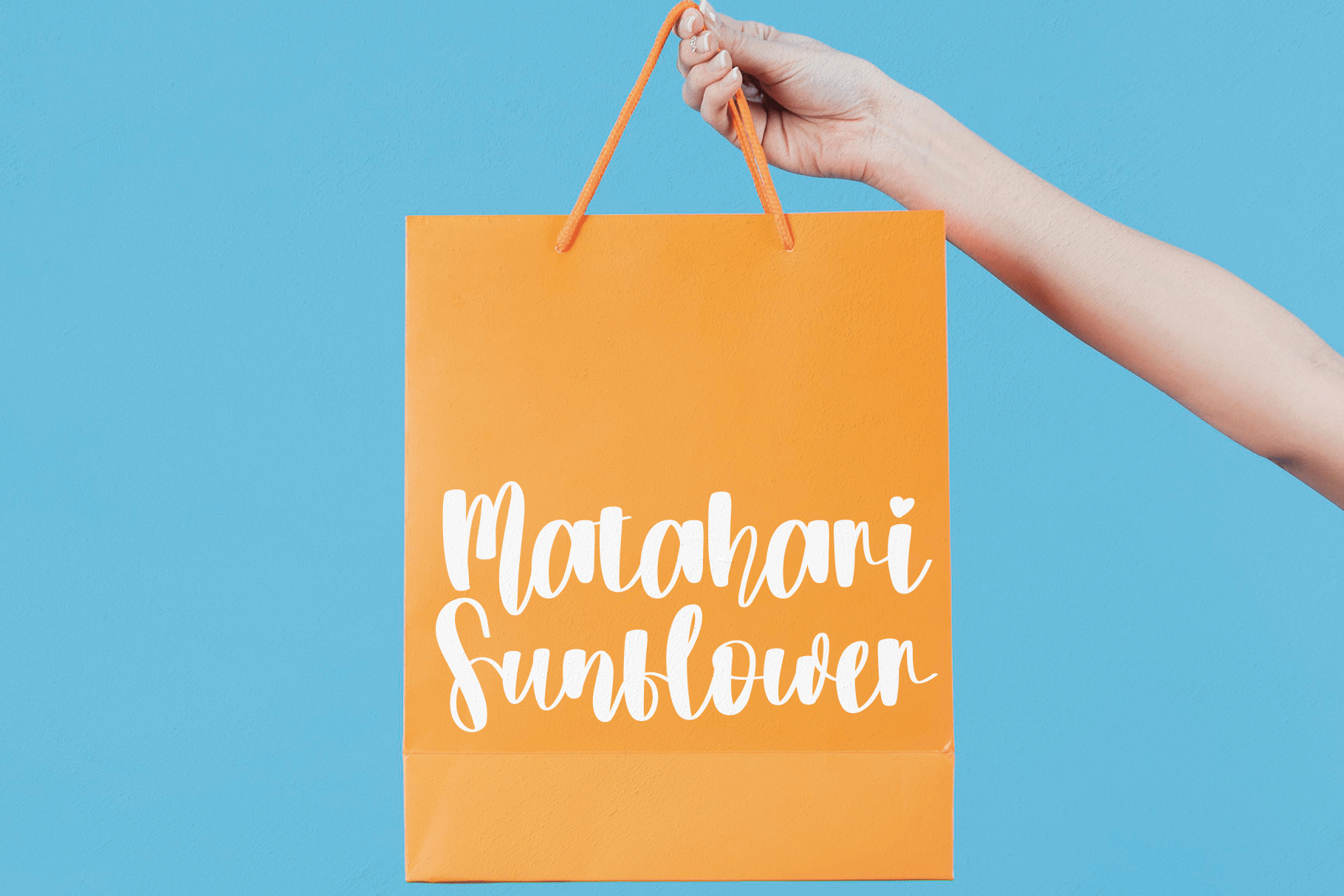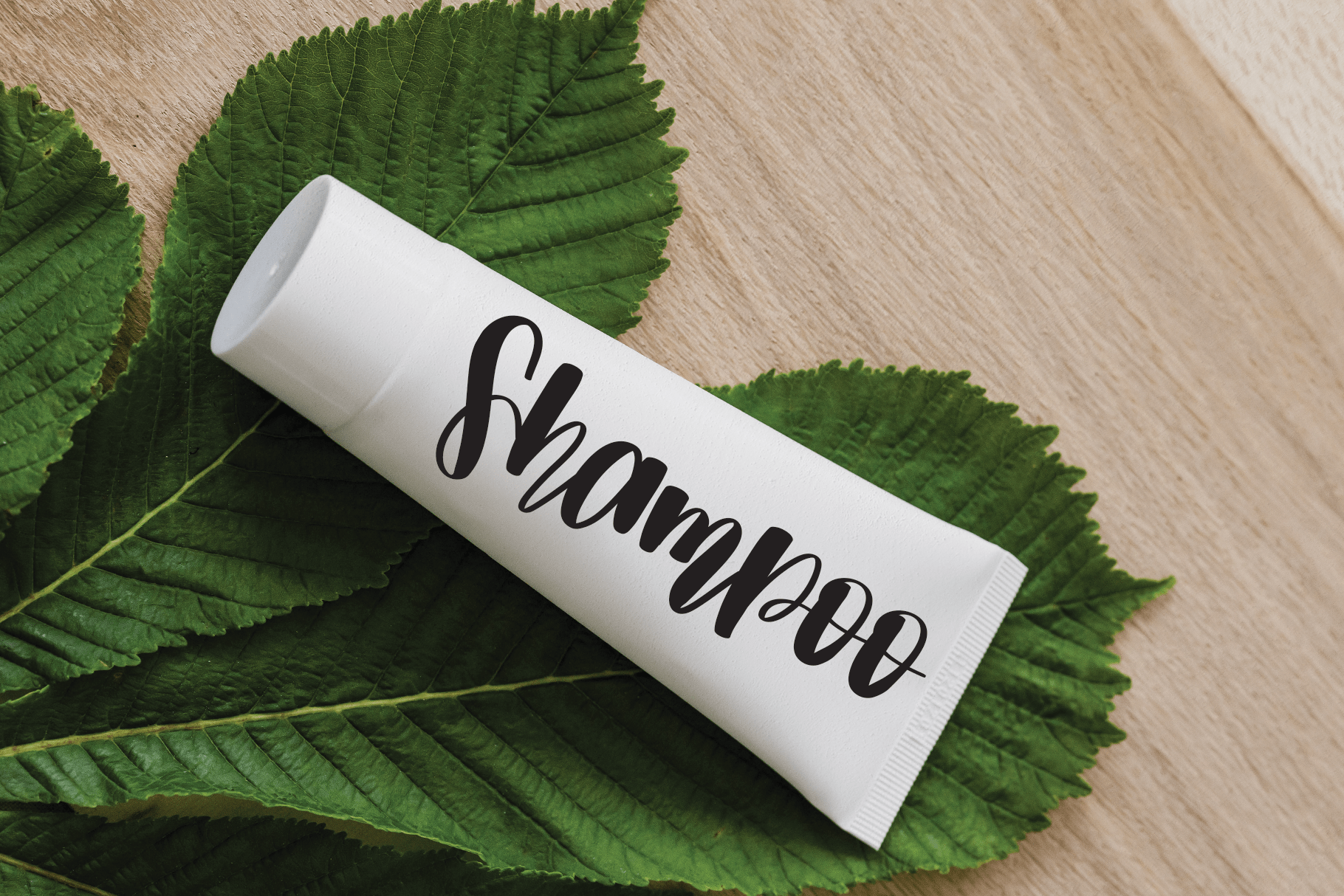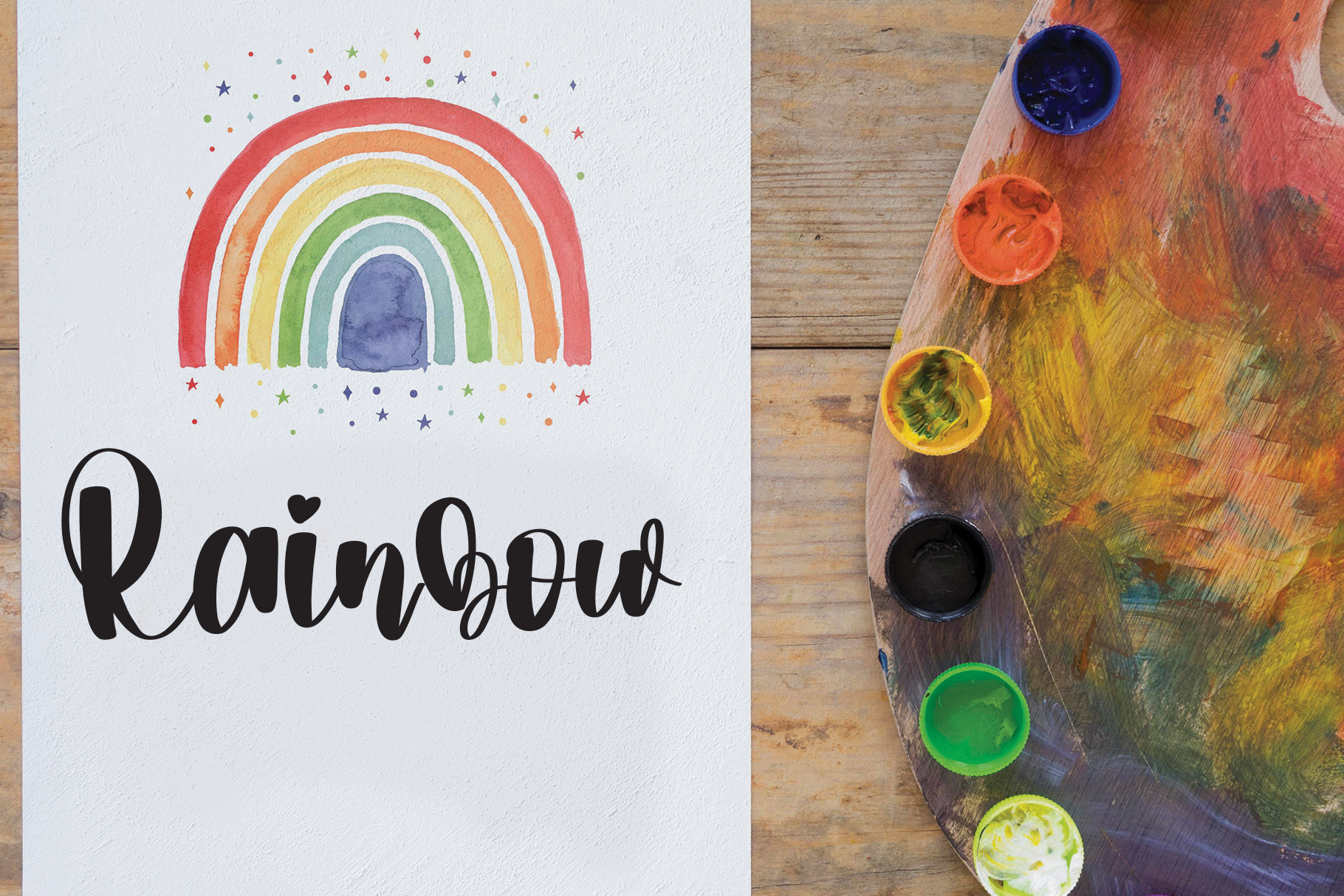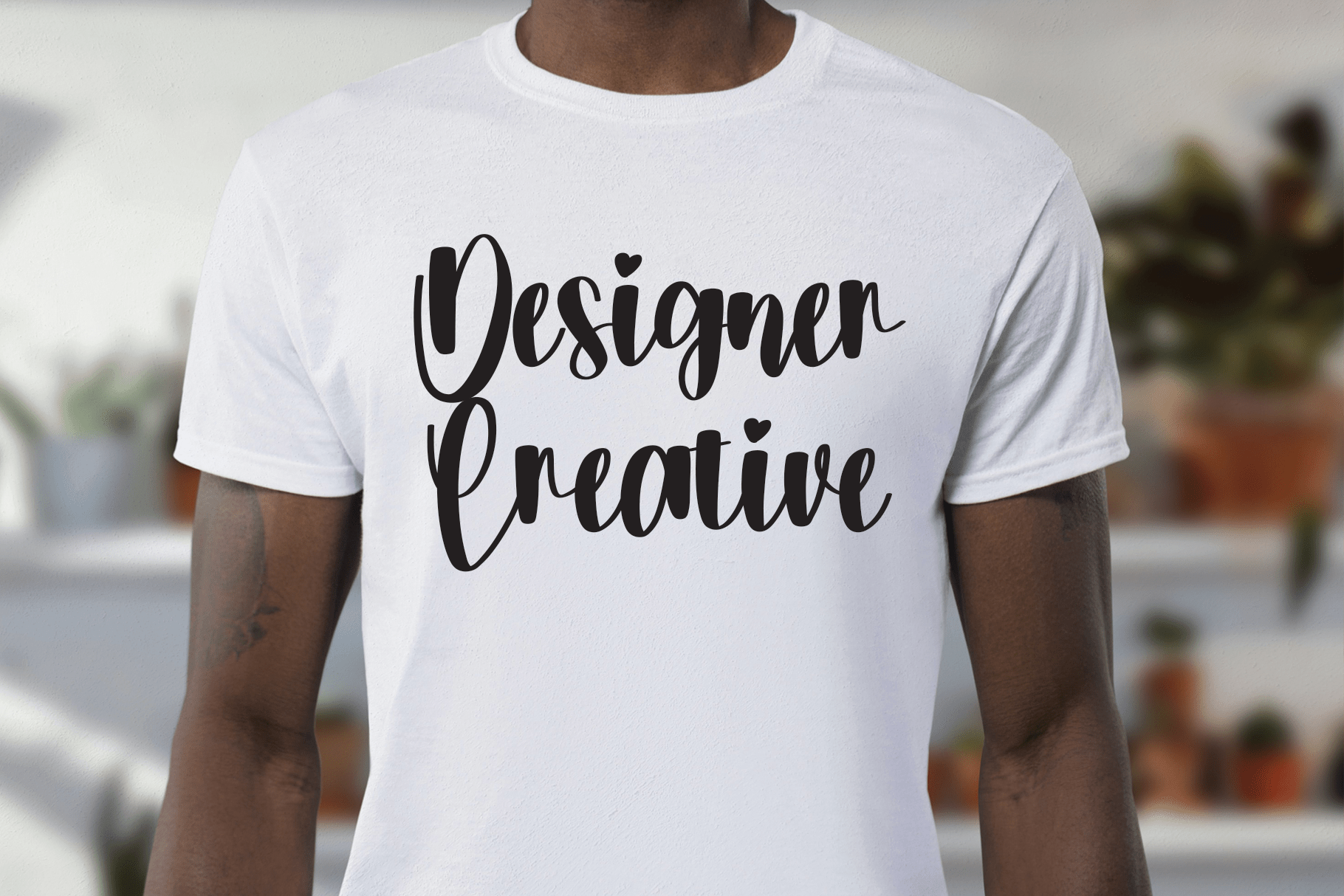
Baby Font
Baby Script Font
This is a delicate and natural handwritten font. It is suitable for any branding, product packaging, invitation, quote, t-shirt, label, poster, logo that you wish to develop.